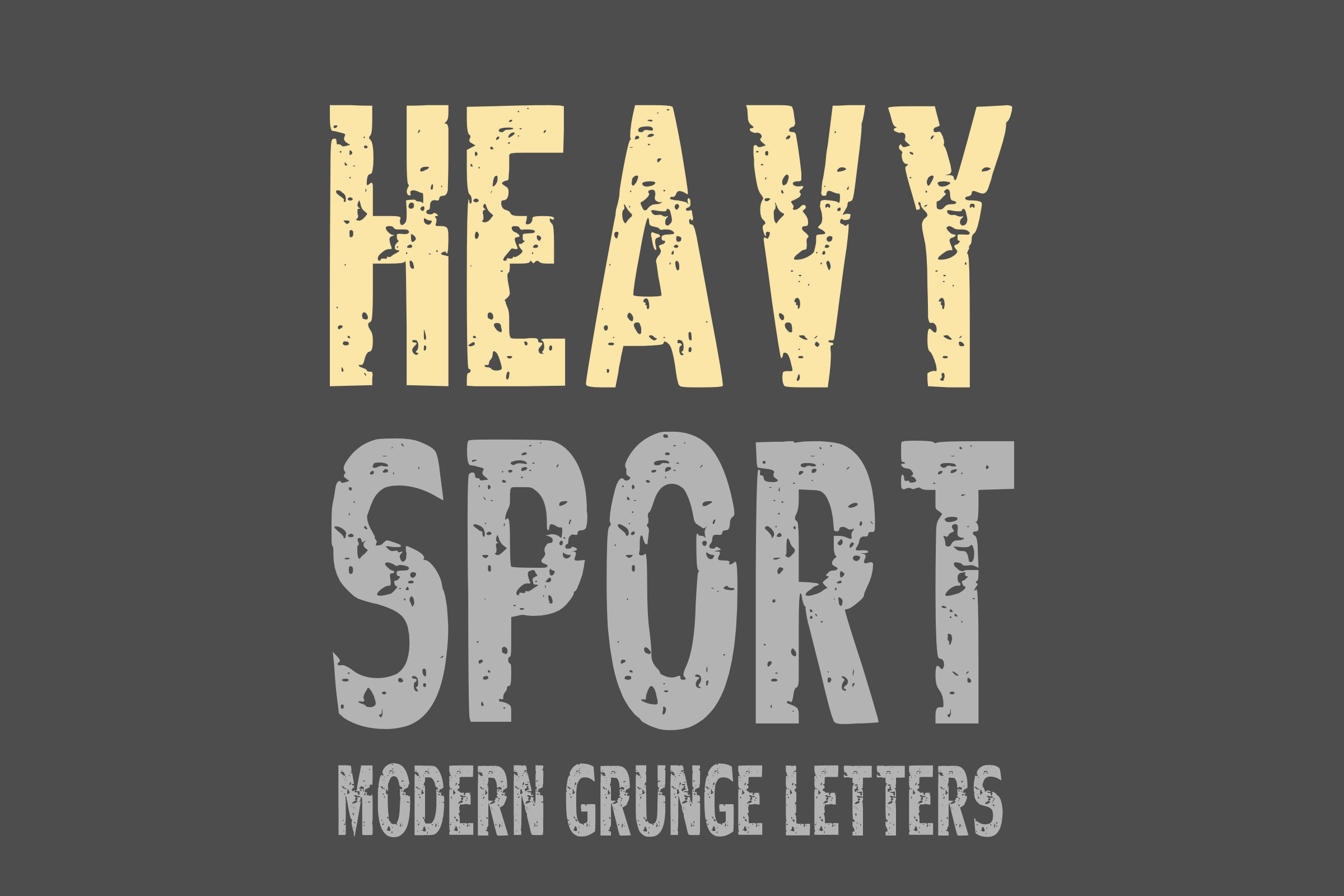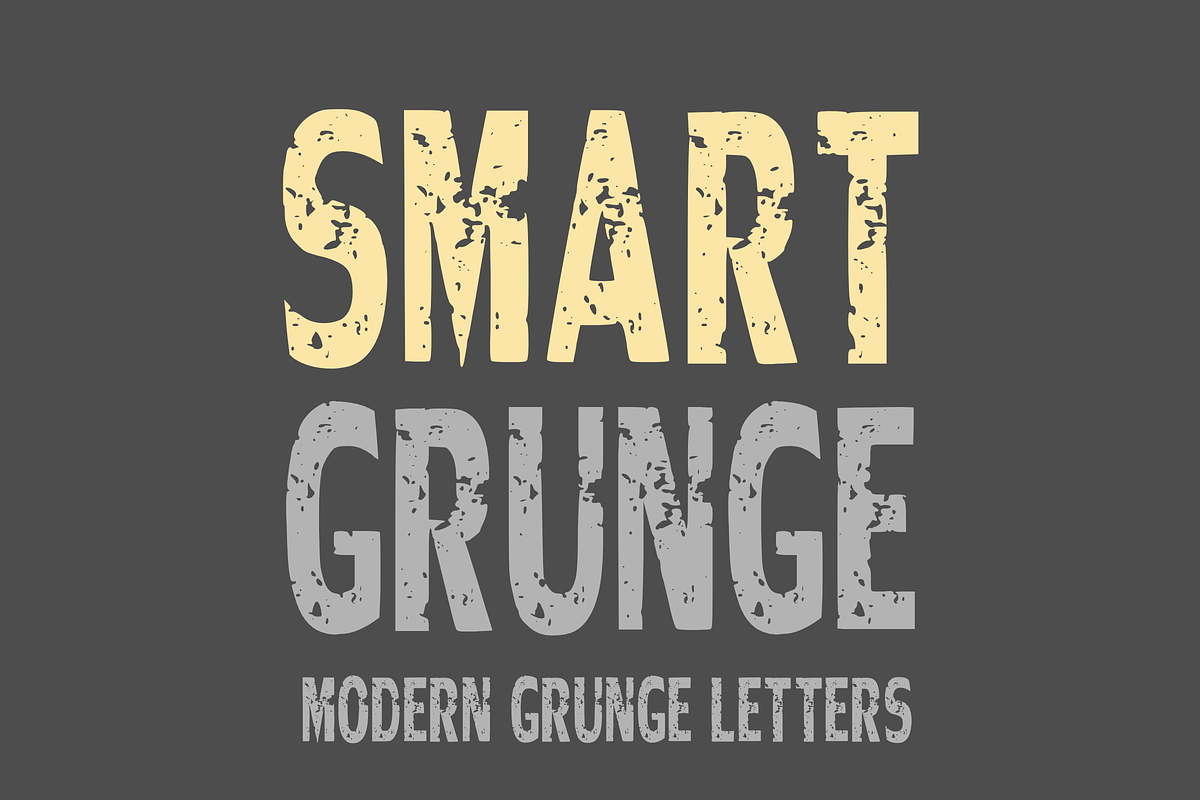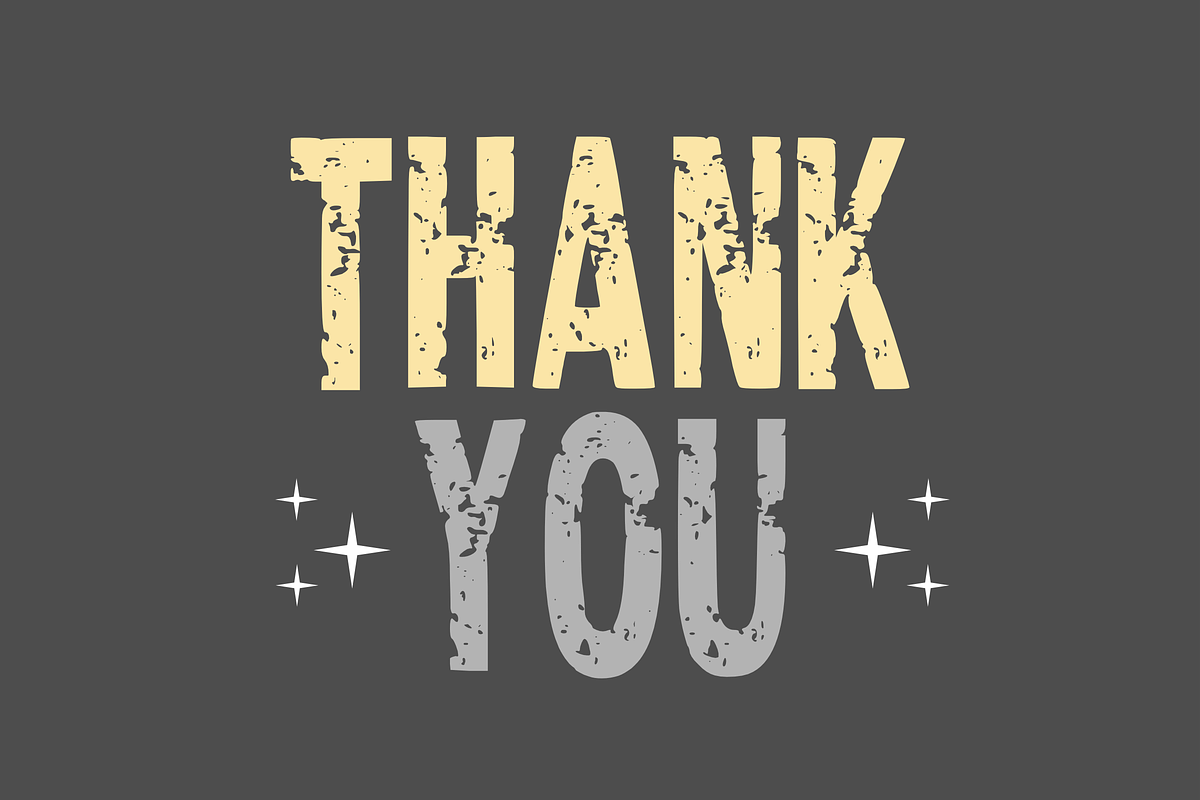
Heavy Sport - Grunge Font Types
Infused with a contemporary grunge aesthetic, “Heavy Sport” reimagines the definition of strength in typography. Each character resonates with a robustness that ensures maximum visibility, irrespective of your design canvas. Whether adorning your favorite t-shirts, adding an artistic charm to mugs and tote bags, or electrifying animations and comic titles, this powerful font is in a league of its own. Inviting a wave of creativity, the “Heavy Sport” offers a playground to let your imagination run wild. Show your appreciation for unique typography by liking and following our work, as your support fuels our passion to design more innovative and unique fonts. Gratitude envelops us as we continue this exciting font journey with you!